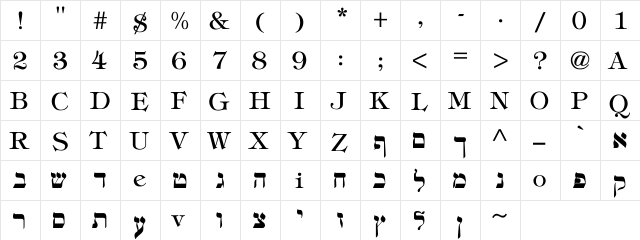
Rebeccah Regular
Design Context for Rebeccah Typeface
Rebeccah takes a measured approach to typography — its balanced proportions and neutral character make it a reliable workhorse for both digital and print work.